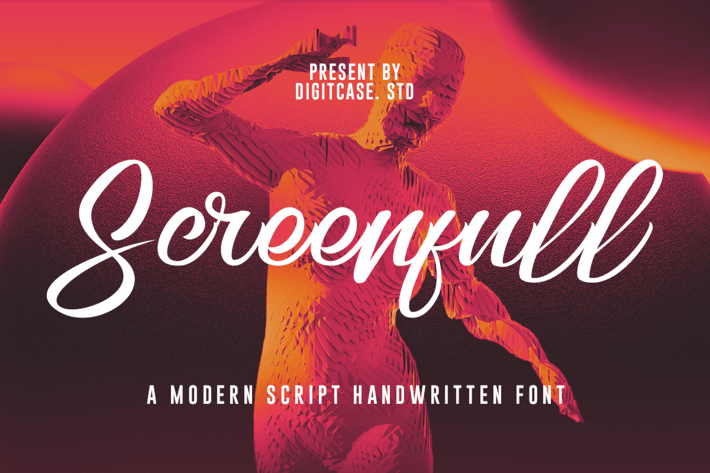
Screenful Modern Script Handwritten Font
Screenfull Modern Script Handwritten Font typeface excellent used for the manufacture quote text, logotype, header magazine, and many more.
Ligatures & Alternate
Numeral & Punctuations